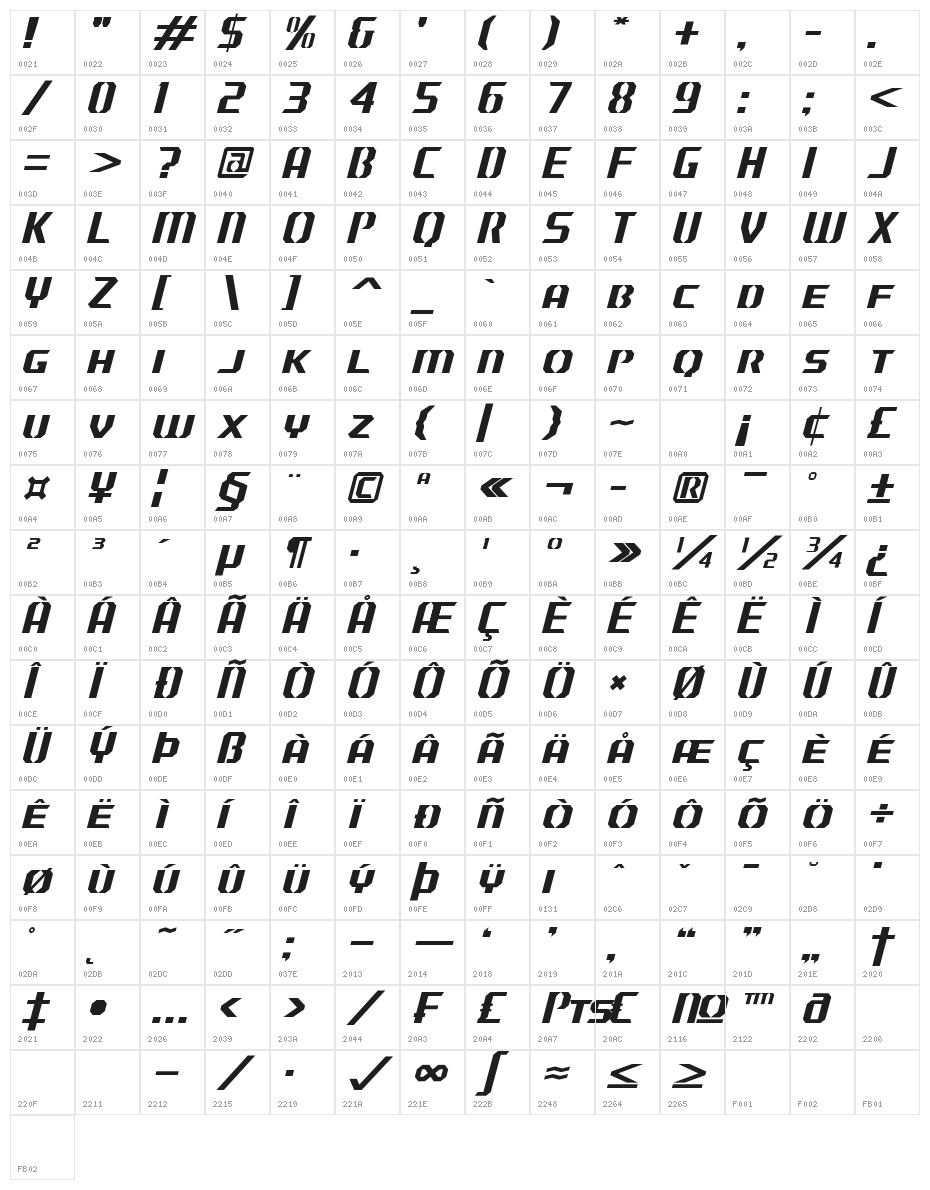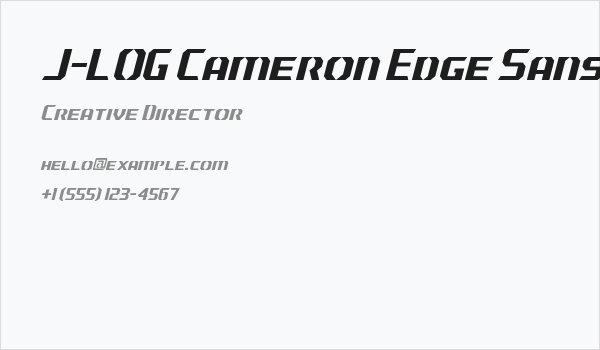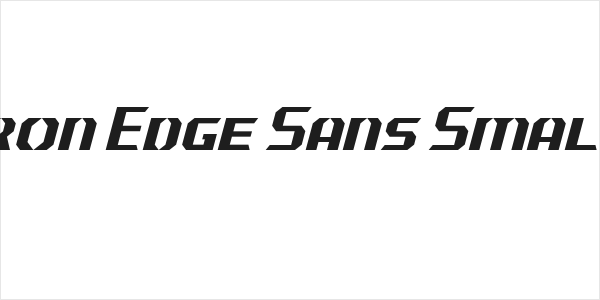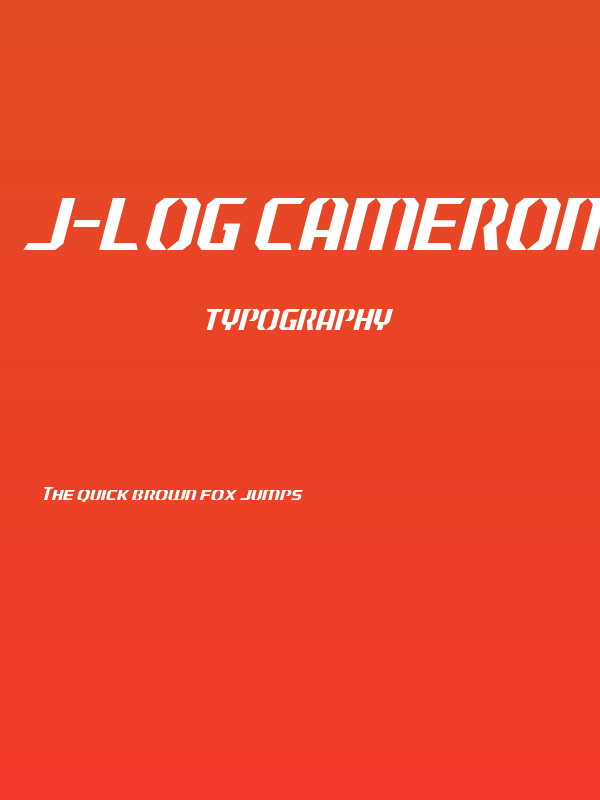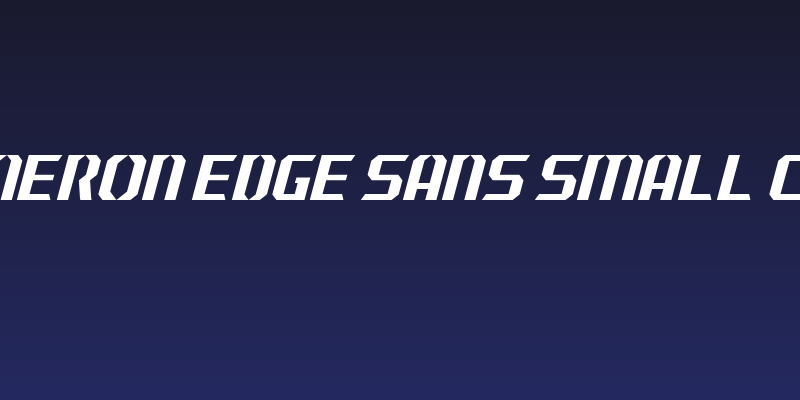
J-LOG Cameron Edge Sans Small Caps Italic Font
J-LOG Cameron Edge Sans Small Caps Italic Description
| Proposed Projects | Ideal for branding, logos, posters, and any design requiring a modern and edgy look. |